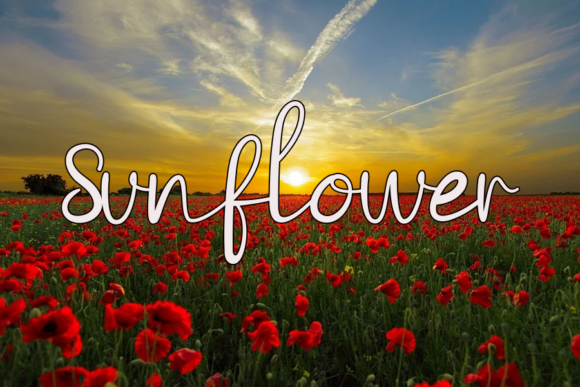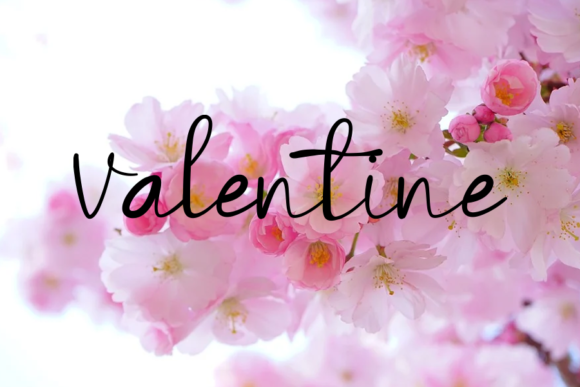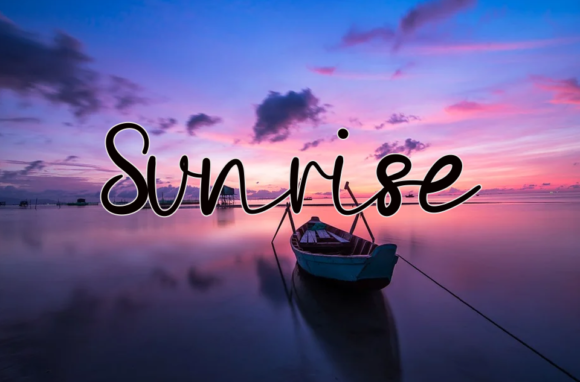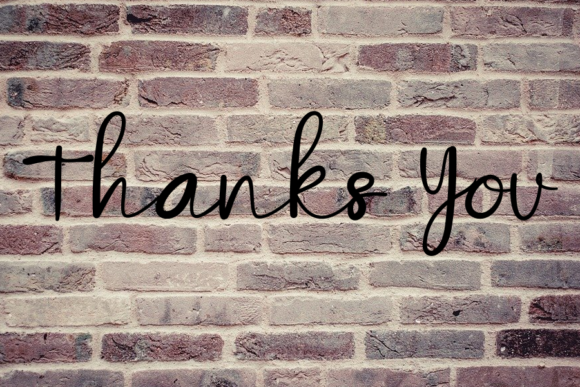
Hello Holiday Font
About Hello Holiday Font
Hello Holiday is a cute, cursive and flexible handwritten font. It can be added to various design ideas, especially those that feature a casual or informal vibe.